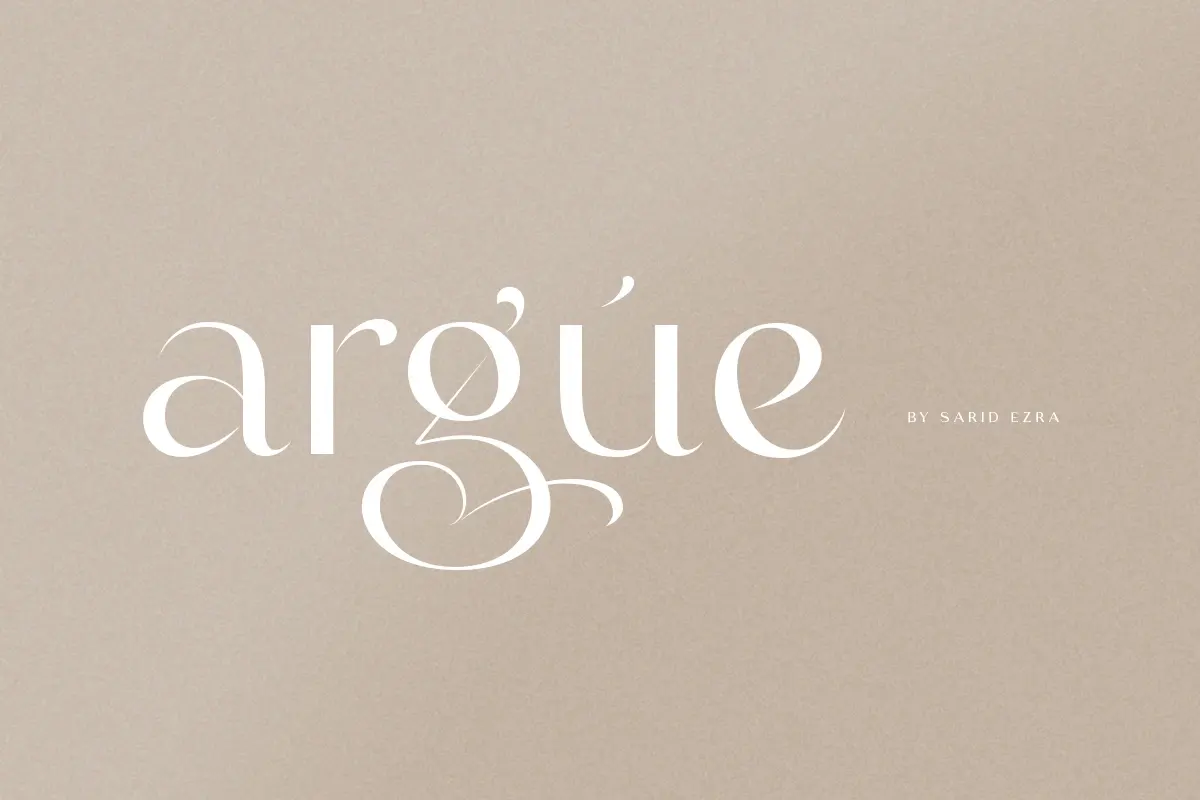
Argue Font Free Download is a bold and stylish typeface that blends contemporary elegance with a confident, edgy character. With its sleek lines, sharp angles, and modern aesthetic, Argue is perfect for fashion branding, album covers, magazine layouts, editorial headlines, and creative projects that need a touch of sophistication with attitude.
Designed to make a statement, Argue Font Free Download stands out with its strong personality and clean geometry. Whether used in uppercase titles or minimalistic logo designs, it brings both clarity and charisma to your typography.
Argue is ideal for designers who want to break from the ordinary and embrace a font that’s both stylish and versatile. It pairs beautifully with sleek sans-serifs or script fonts, allowing you to create dynamic visual contrast.